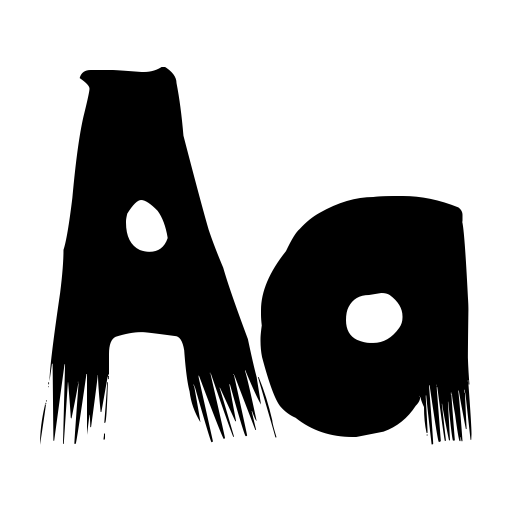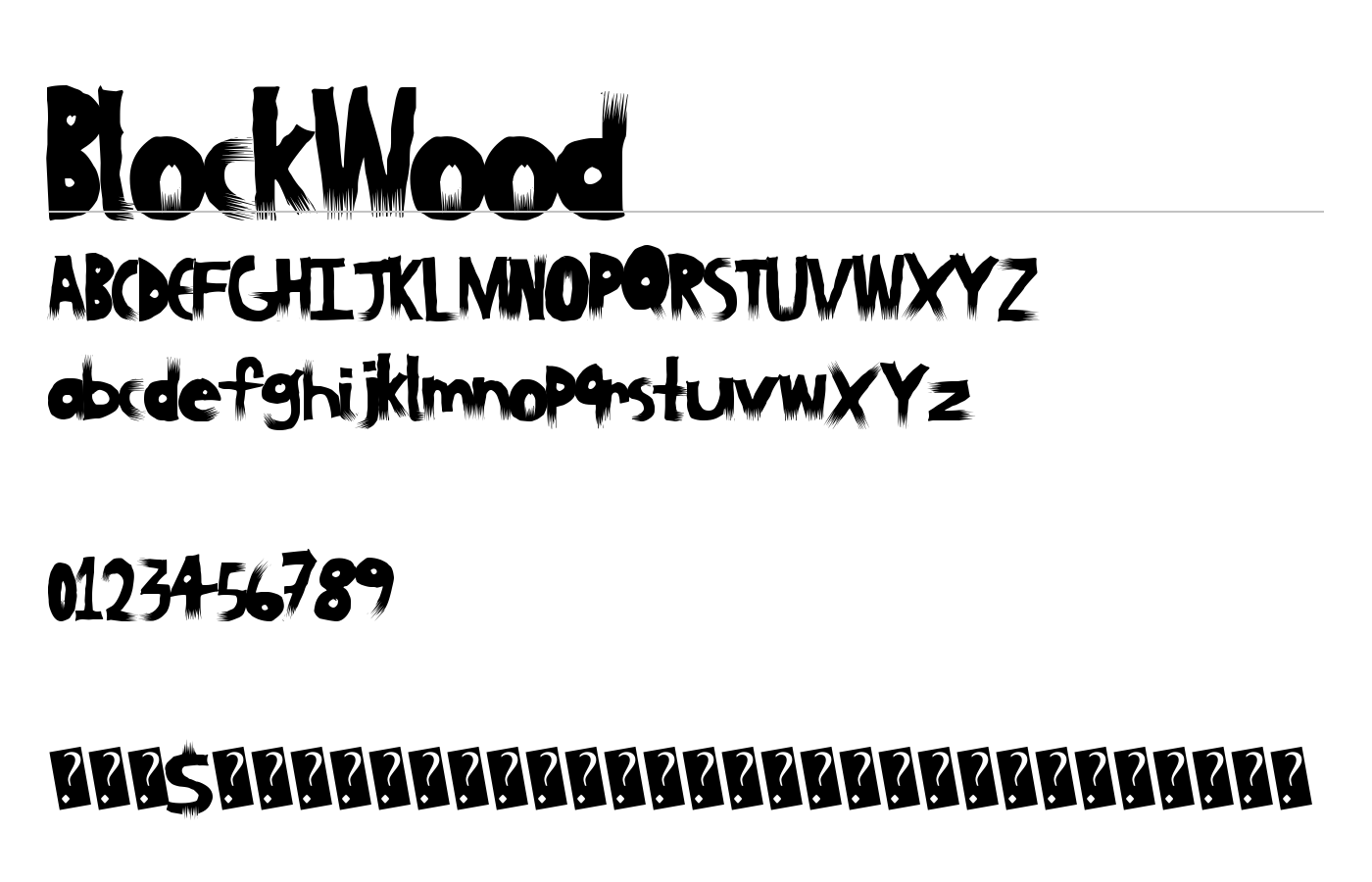
BlockWood is a bold, playful display font with a hand-carved, textured look that mimics the rough edges and grain of wood. It features irregular, slightly condensed letterforms with dramatic stroke contrast and a distressed, artistic feel, making it ideal for creative headlines, posters, or branding that needs a rugged, organic touch. This font works best where a unique, eye-catching style is needed to convey a bold and energetic personality.
BlockWood Font
About BlockWood Font